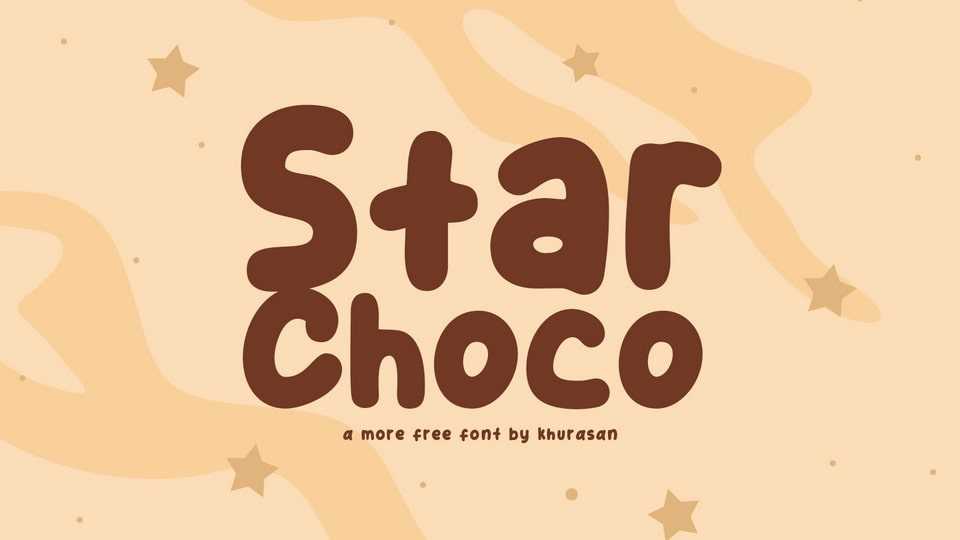
Download Star Choco font, a simple and cute hand drawn font designed to add a charming, natural touch to all your projects. From greeting cards and quotes to social media graphics and branding materials, Star Choco font will bring a playful energy to your work.